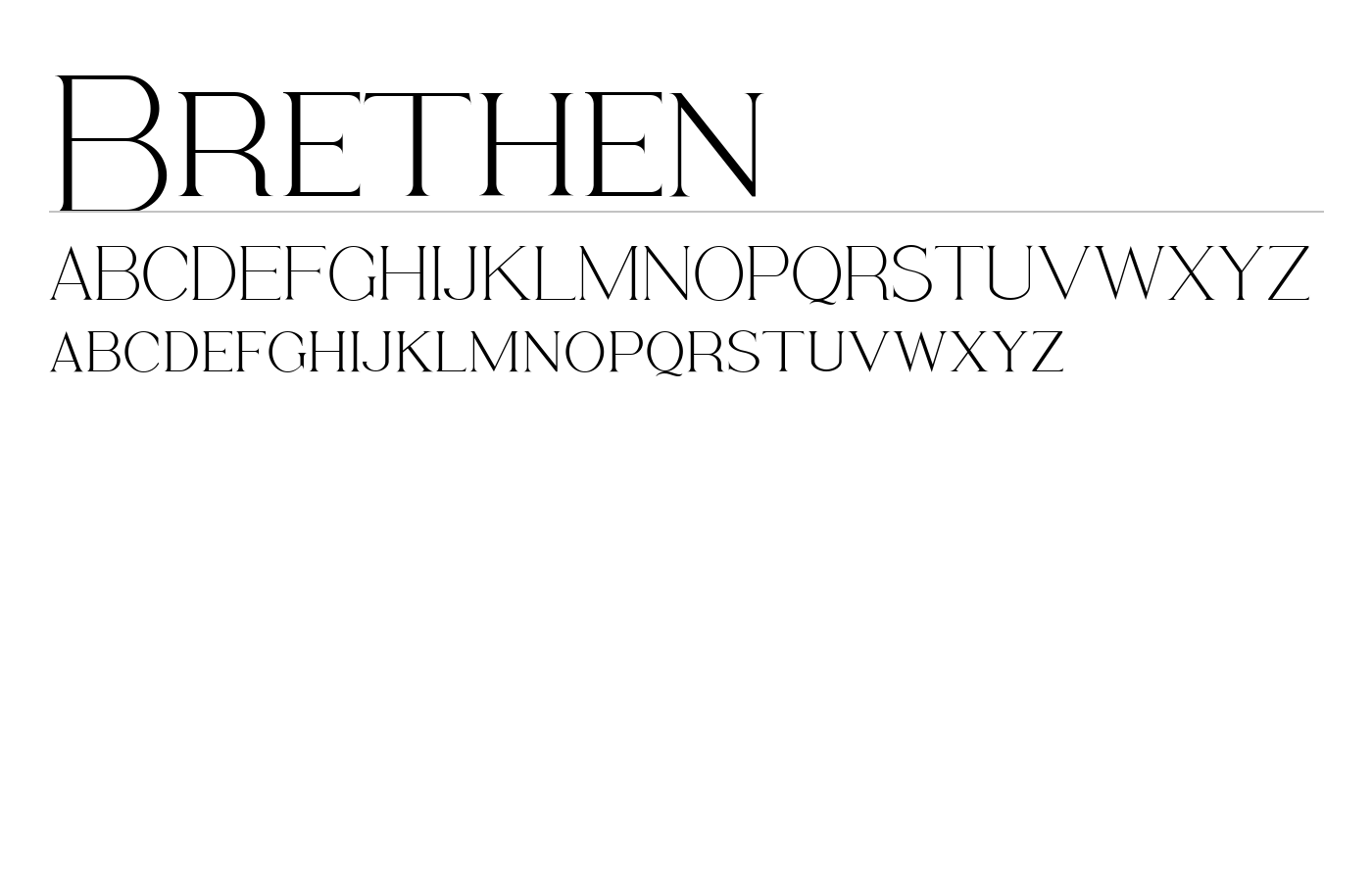
Brethen is an elegant serif font characterized by its modern, high-contrast stroke with thin, sharp serifs and a tall, refined structure. Its sophisticated and narrow letterforms give it a luxurious and timeless feel, making it ideal for upscale branding, editorial headlines, and fashion-related design projects that seek a sense of classic refinement with a contemporary twist.
Brethen Font
| Designer | Iqbal Pauji |